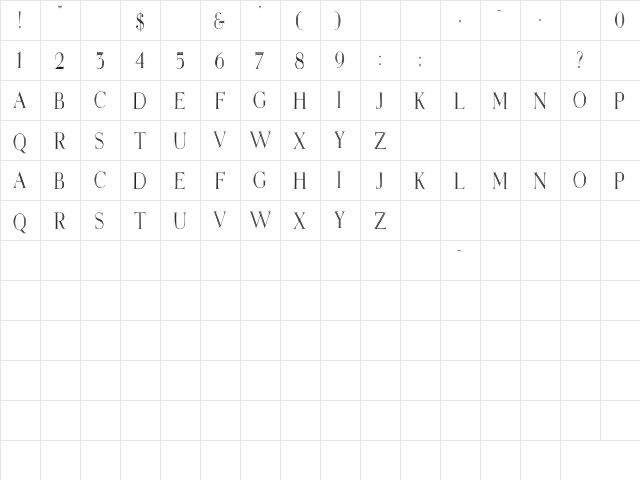
Elizabeth Cn Regular Font Preview
Elizabeth Cn Regular
Design Context for Elizabeth Cn Typeface
Elizabeth Cn is a composed and adaptable typeface that performs quietly and consistently across a wide range of design contexts.
Pro Tip: Use Elizabeth Cn in both headline and body roles to test its range before committing to a single application.